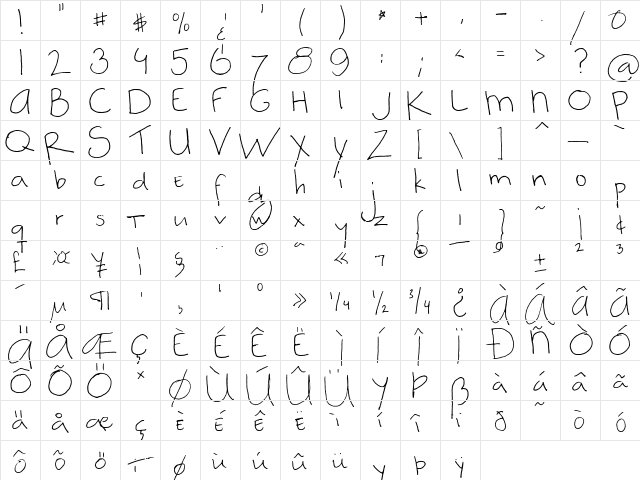
FG Petronella Regular
Regular · Font Garden  ·
Design Context for FG Petronella Typeface
FG Petronella is a composed and adaptable typeface that performs quietly and consistently across a wide range of design contexts.